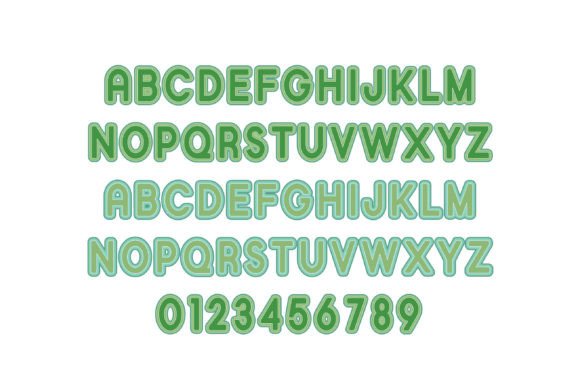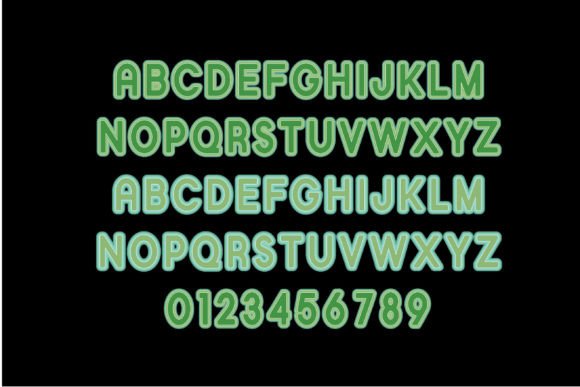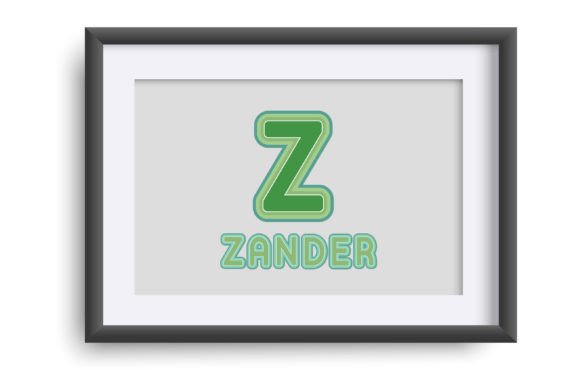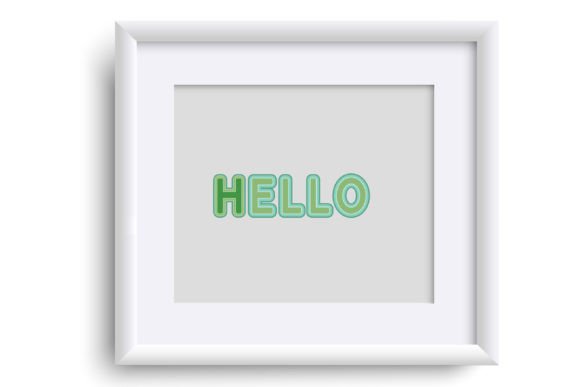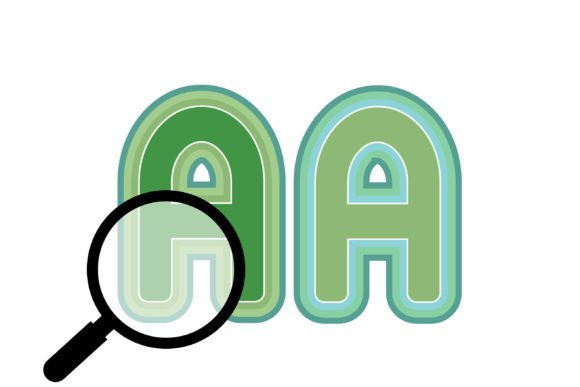
Introduction to Shamrock Kiss Font
As a designer, there’s nothing quite like the thrill of bringing a creative project to life. You’ve got a vision, a spark of inspiration that sets your imagination ablaze. But, sometimes, that spark needs a little nudge to reach its full potential. That’s where the perfect font comes in – and for St. Patrick’s Day designs, there’s no better choice than the Shamrock Kiss Font.
With its sleek, clean lines and contemporary style, this high-quality font brings a fresh twist to traditional Irish motifs. It’s the perfect design resource for adding a touch of luck to your party invitations, greeting cards, and social media posts. And, with its PUA encoding, you can access all of the glyphs and swashes with ease, making it a valuable asset for any designer looking to elevate their creative project.
- Unique and elegant design, perfect for creative projects
- High-quality font with a transparent background, ideal for use on various design resources
- Includes a variety of characters, including uppercase and lowercase letters, numbers, and punctuation marks
- Great for use in invitations, posters, and other creative projects where a touch of Irish charm is desired
Honest Review: Shamrock Kiss Font
As a designer, I’m always on the lookout for high-quality design resources to elevate my creative projects. Recently, I stumbled upon the Shamrock Kiss Font, and I must say, it’s a lovely addition to any design arsenal.
- The Shamrock Kiss Font features a transparent background, allowing for easy layering and manipulation in design software.
- The font’s Irish-inspired design makes it perfect for St. Patrick’s Day-themed projects or any design that requires a touch of whimsy.
- The font may not be suitable for professional or formal designs, as it’s more geared towards creative and playful projects.
- The font’s limited character set may require some additional formatting for longer text blocks.
Overall, I’m impressed with the Shamrock Kiss Font. It’s a fun, high-quality design resource that’s perfect for adding a touch of personality to creative projects. While it may have some limitations, I believe it’s a valuable addition to any designer’s toolkit.
For optimal results, use the Shamrock Kiss Font on a transparent background to allow for maximum flexibility in your design project. You can also experiment with different font sizes and colors to achieve the desired effect.
The Shamrock Kiss Font is ideal for creative projects that require a touch of Irish charm, such as St. Patrick’s Day-themed designs, wedding invitations, and holiday cards.